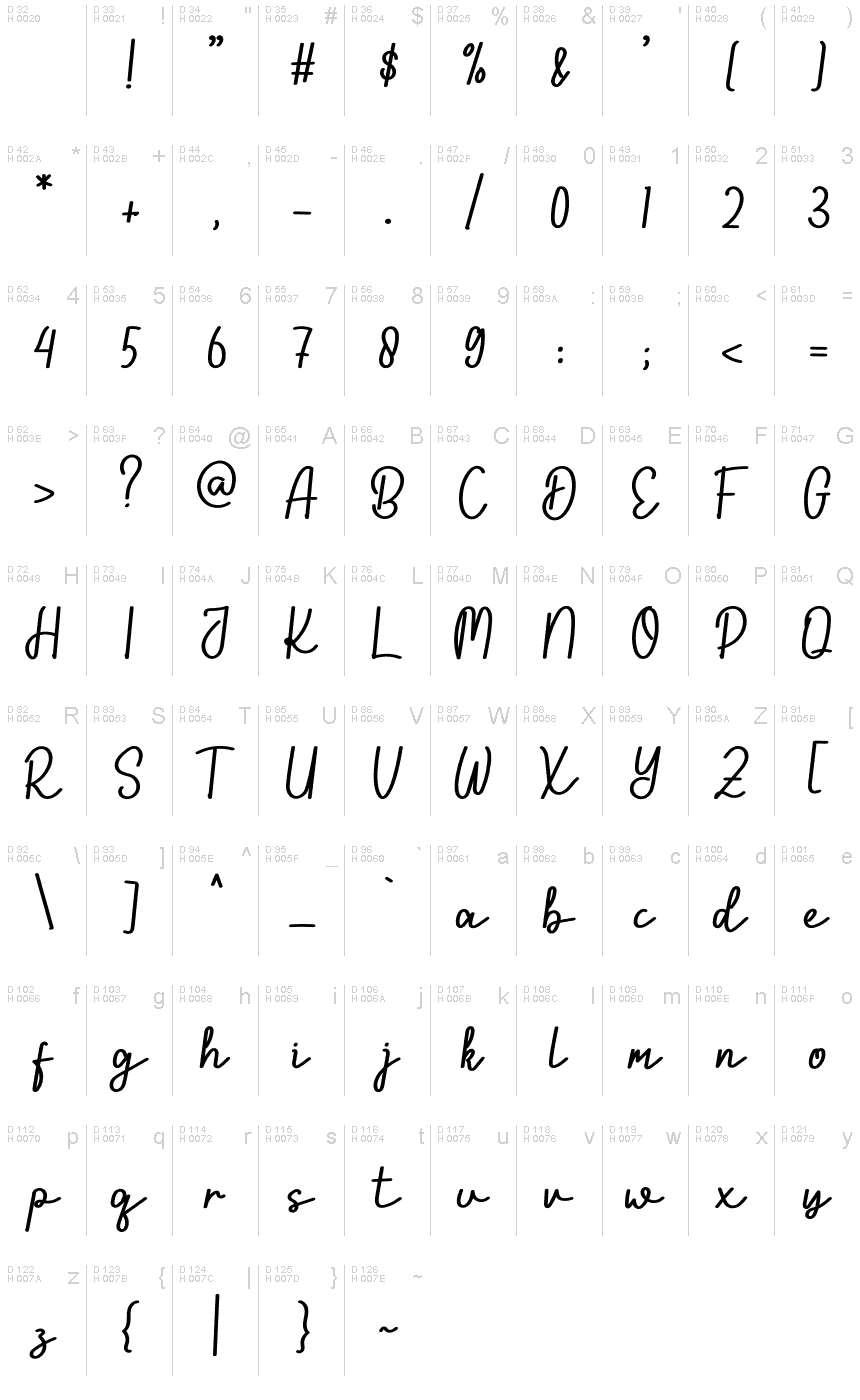
Reliance
Reliance is a charming semi-light handwritten font designed by Inermedia Studio. This font is perfect for projects that require a personal touch, such as wedding invitations, greeting cards, and social media graphics. Its delicate strokes make it ideal for adding a touch of elegance to your designs without overwhelming them. The Reliance font style is versatile and can be used for various projects such as logos, posters, and branding materials. Whether you're designing for print or digital platforms, Reliance will add a unique and authentic feel to your work. Try this beautiful typeface today!